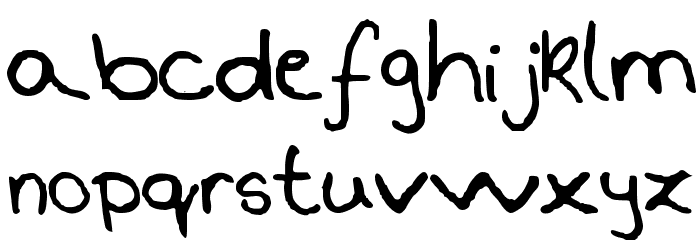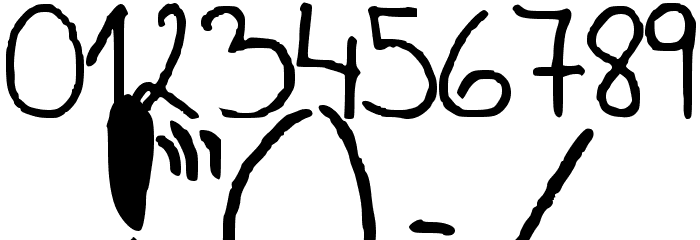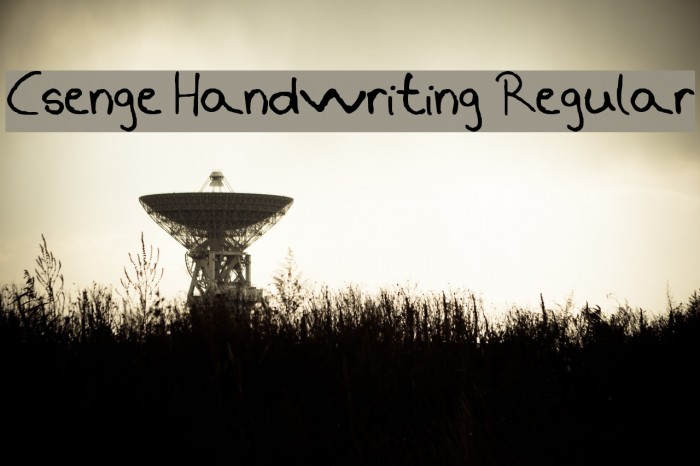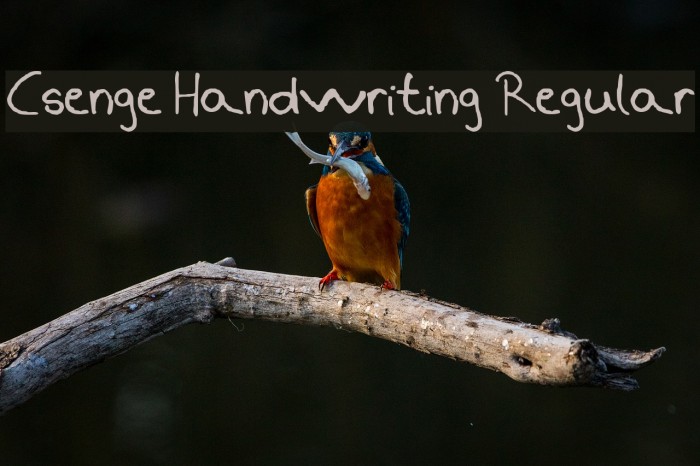
Csenge Handwriting Regular Font
This font exudes a playful and casual handwritten style, characterized by its irregular strokes and organic flow. The letters are slightly tilted, adding to the informal and friendly appearance. The uppercase letters maintain a consistent height, while the lowercase letters vary in size, enhancing the handwritten feel. The numbers and special characters follow the same playful aesthetic, with unique and quirky shapes. This font is perfect for projects that require a personal touch, such as invitations, greeting cards, or creative branding.
A playful, casual handwritten font with irregular strokes and an organic flow.
- Proposed Projects: Ideal for invitations, greeting cards, creative branding, and personal projects.
- Overall Style: Casual
- Use Case: Headlines, Logos, Informal Text